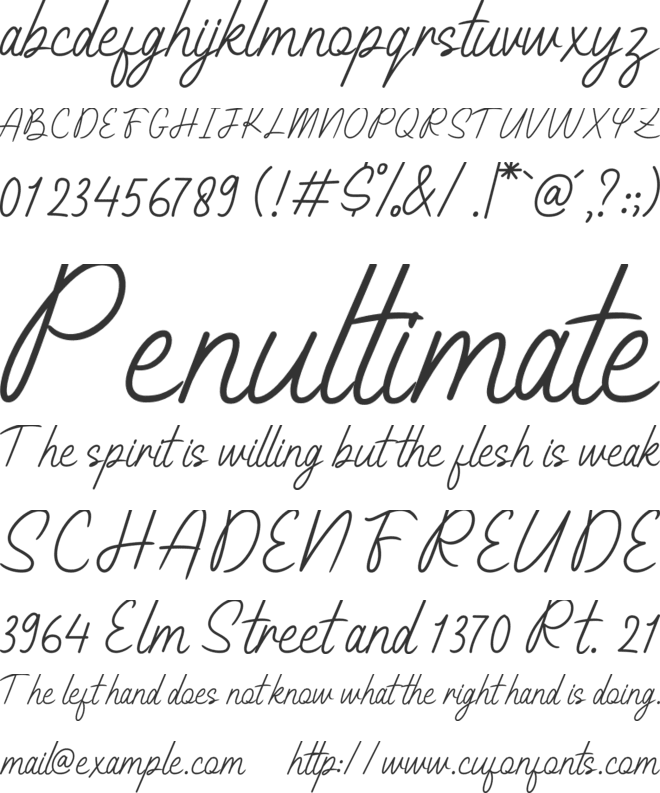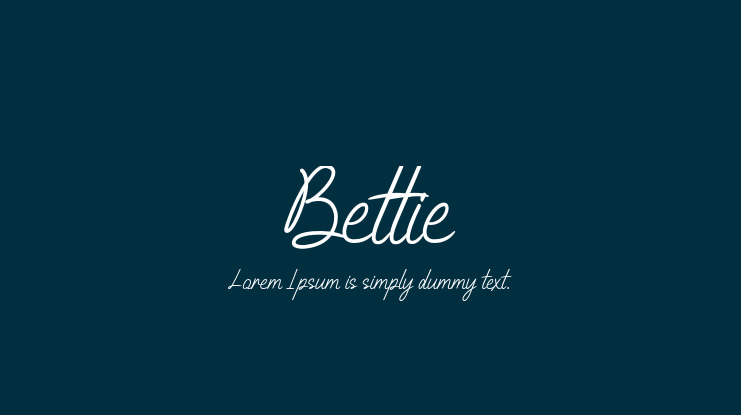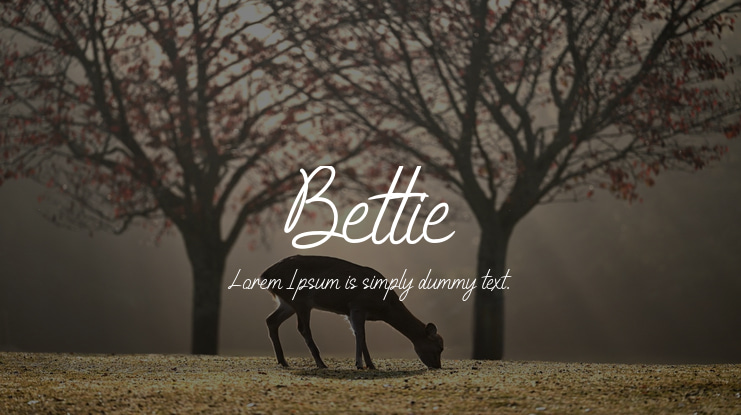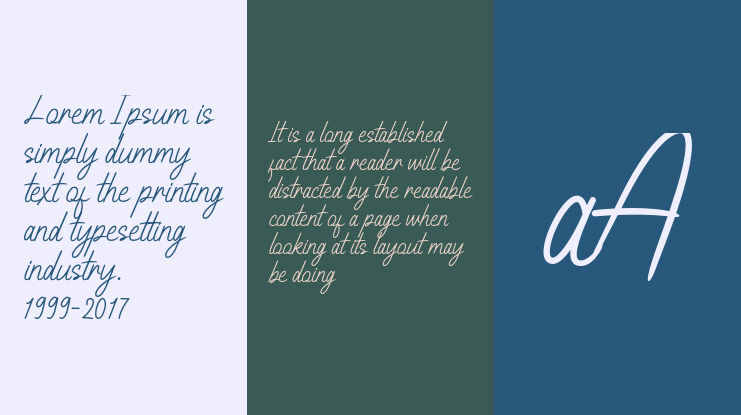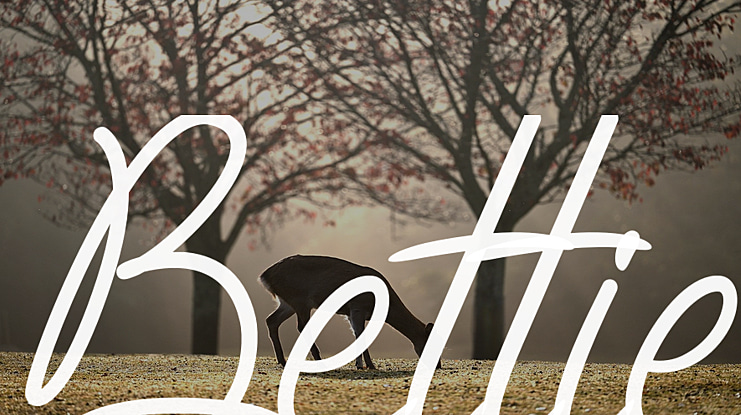
Bettie Font
Pretty Type
Introducing Hey Bettie by Tlatoustype
A fancy and elegant handcrafted font that create to impress your audience and make your branding shine.
Make your projects dance with this elegant and wonderful font wherever you use it. Use it for your
headings, logos, ads, printed quotes, packaging, and even your website or social media branding.